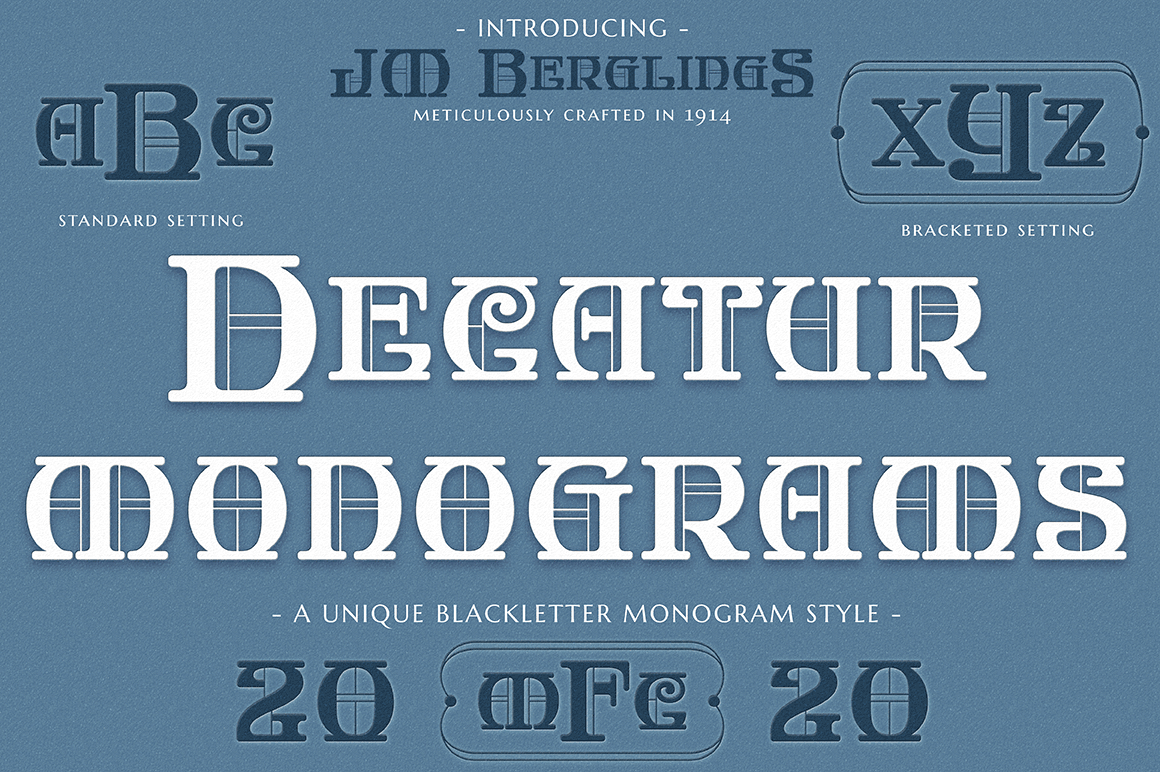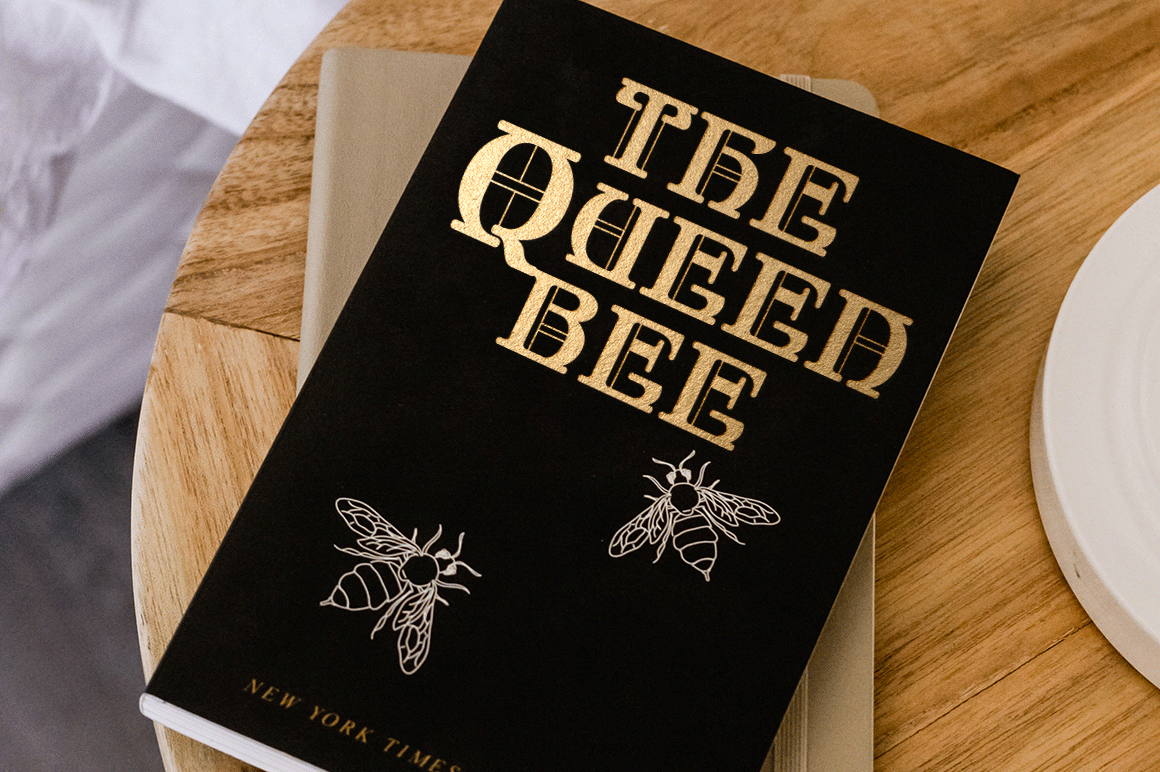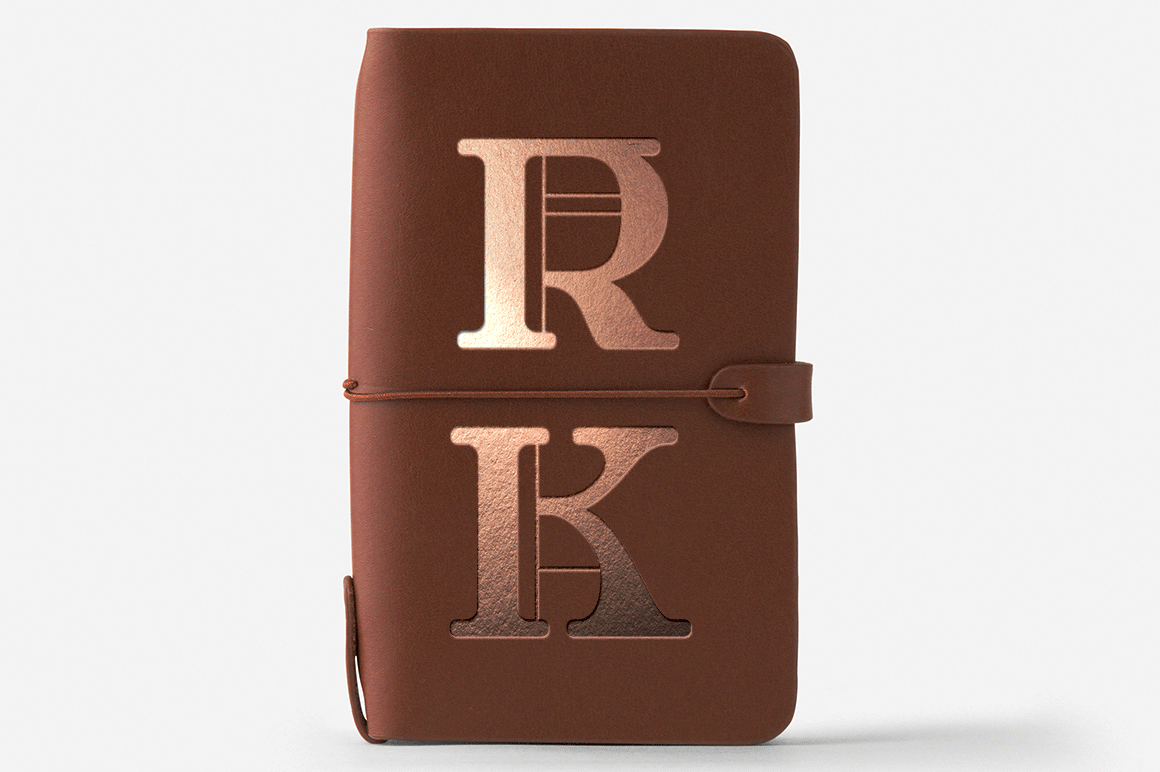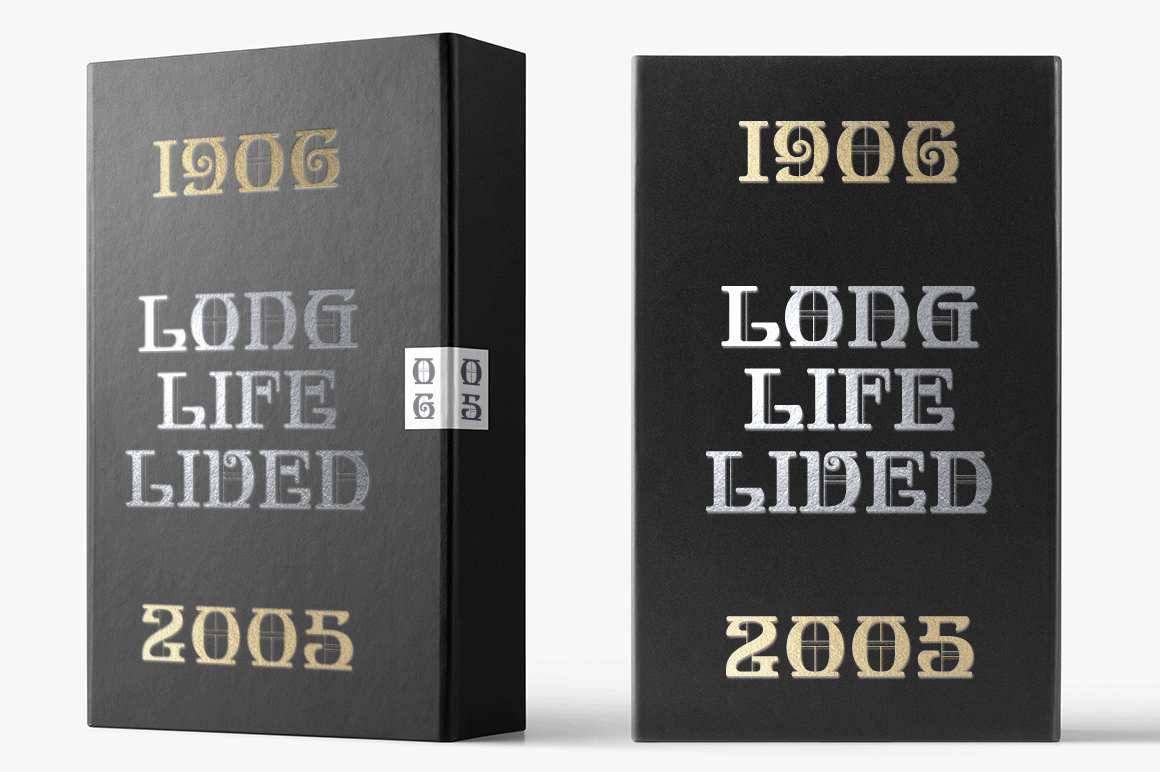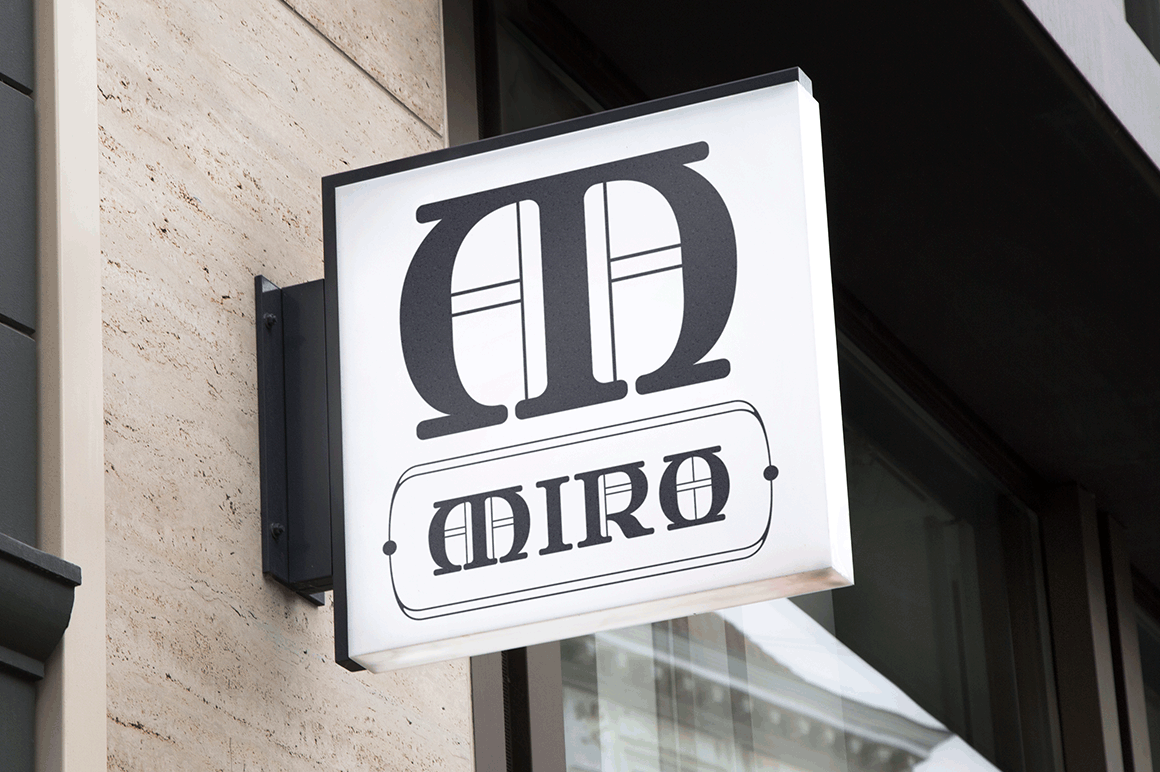
MFC Decatur Monogram
Font Family by Monogram Fonts Co
The source of inspiration for MFC Decatur Monogram is a beautifully styled blackletter from JM. Bergling's 1914 book on Monograms and Engraving Alphabets. This elegant decorative style was shown only displayed as Capital letters, so we took it further by crafting matching Smallcaps, Numerals, and lined Capitals, Smallcaps, and Numerals.
MFC Decatur Monogram can create one, two, or three letter monograms as well as basic headline and titling settings. It is a refined look that is as darling as it is elegant.
Decatur Monogram's numeral set and bullet dividers allow for even more detailed and personalized monograms.
If you want to create a more customized look, you can add any of a handful of complimentary brackets to surround your monogram setting. Any monograms or typesettings surrounded by brackets, braces, or parenthesis will auto line the middle lettersets.
And lastly, due to its traditional smallcaps - Capitals - smallcaps composition, Decatur Monogram can also type unique headings & titles.